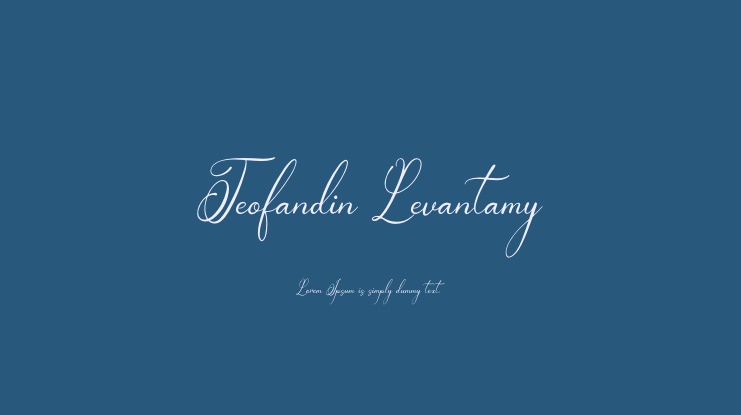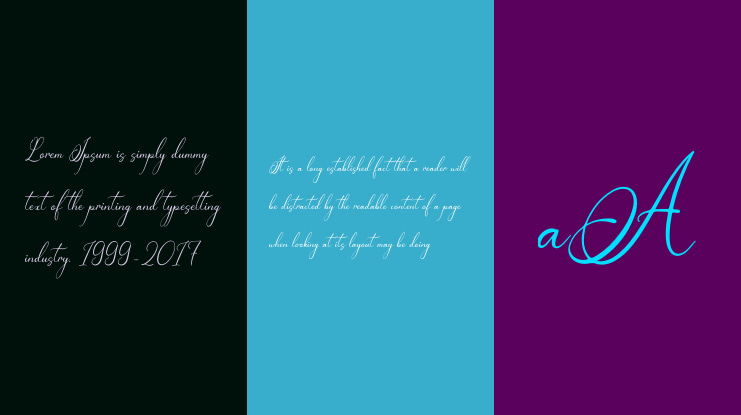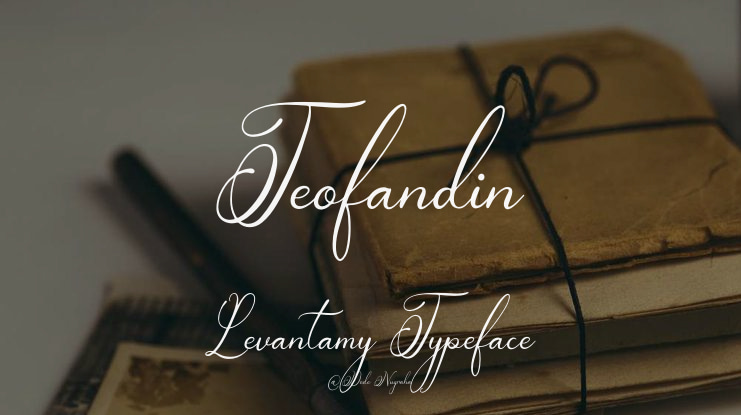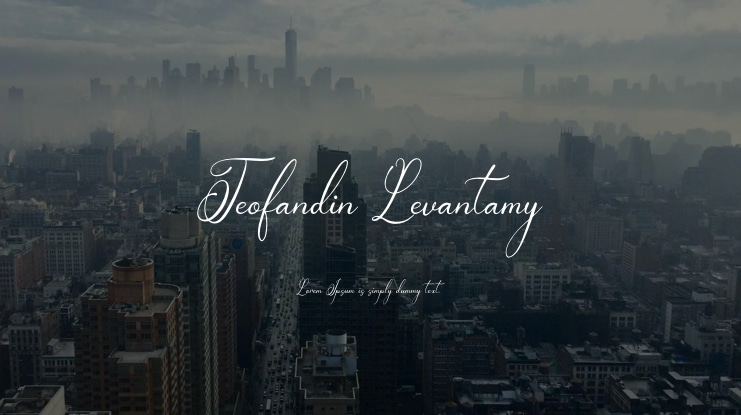
Teofandin Levantamy Font
Teofandin Levantamy | Wedding Calligraphy Script , from Denustudios, suitable for any projects such as: logos, branding projects, homeware designs, product packaging, mugs, quotes, posters, shopping bags, t-shirts, book covers, name card, invitation cards, greeting cards, label, photography, watermark, special events, and all your other lovely projects that need a beautiful script taste.